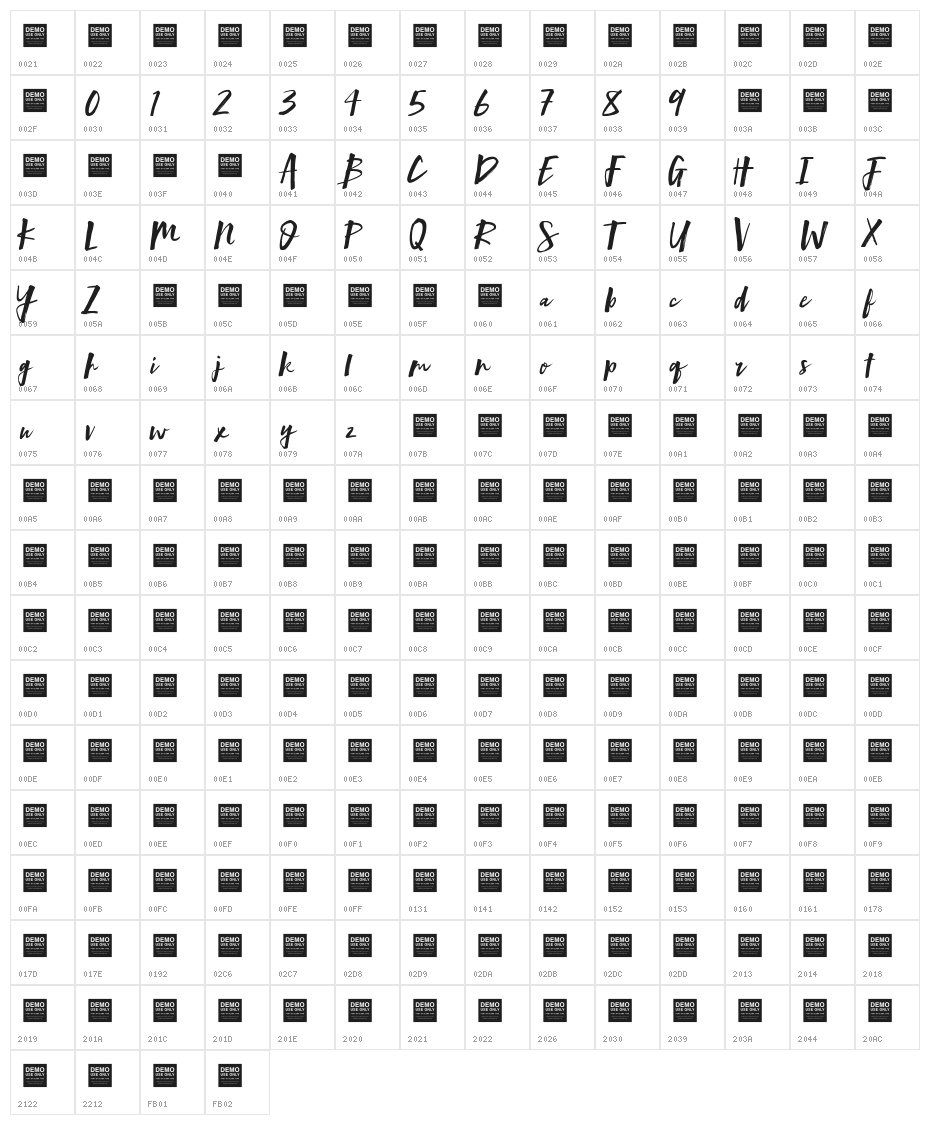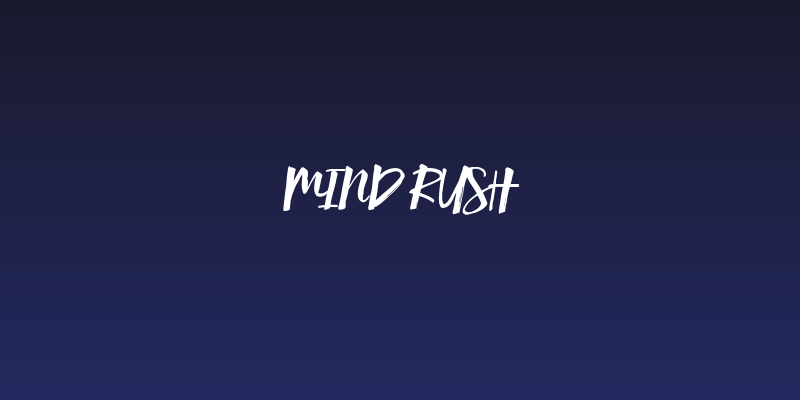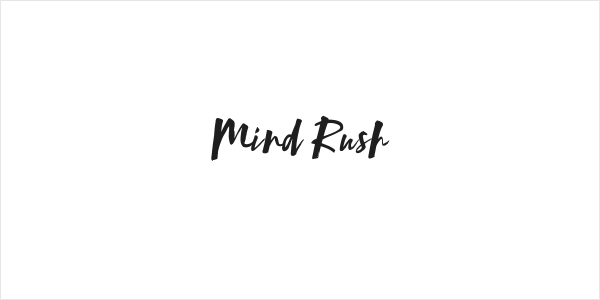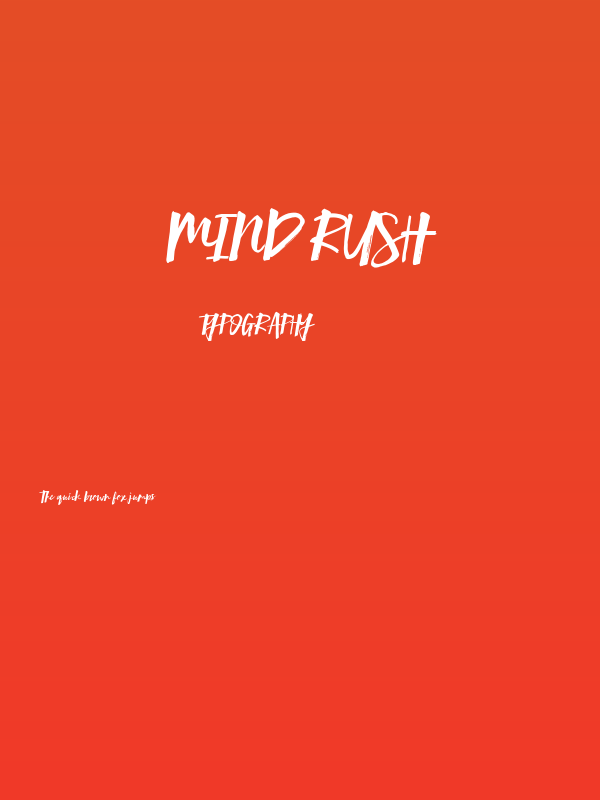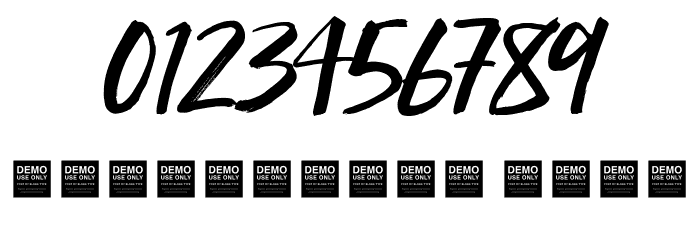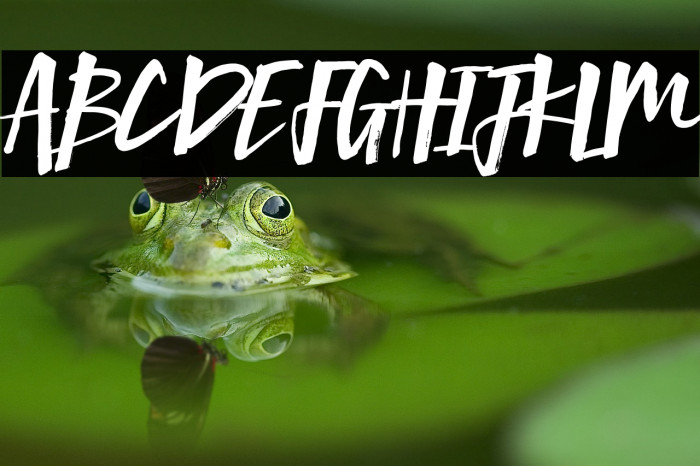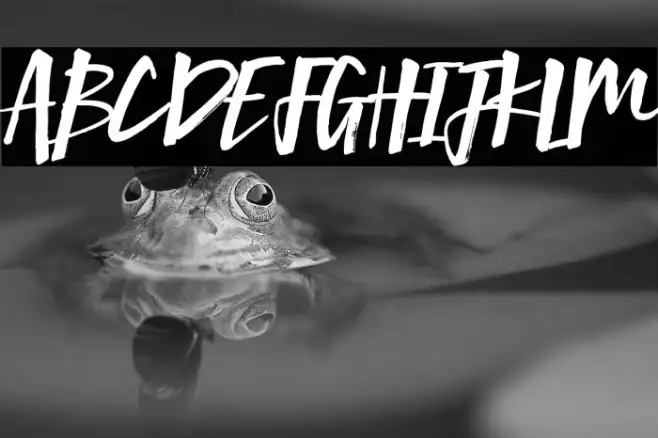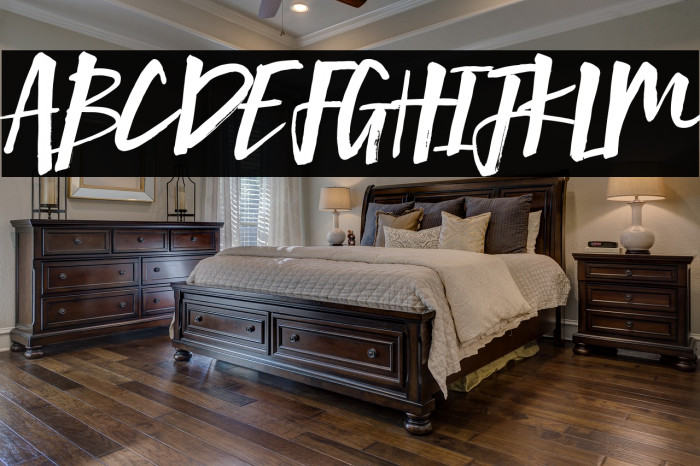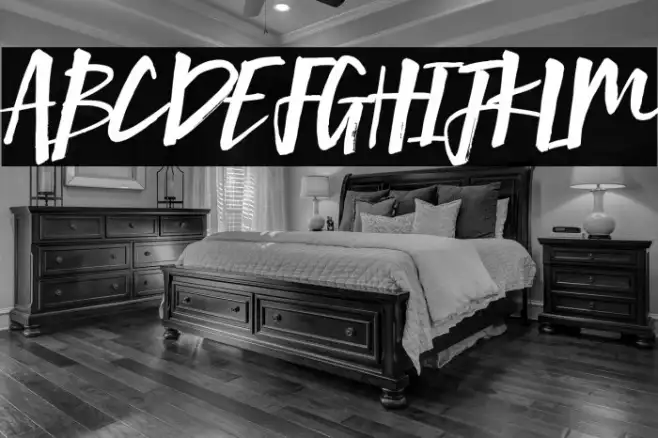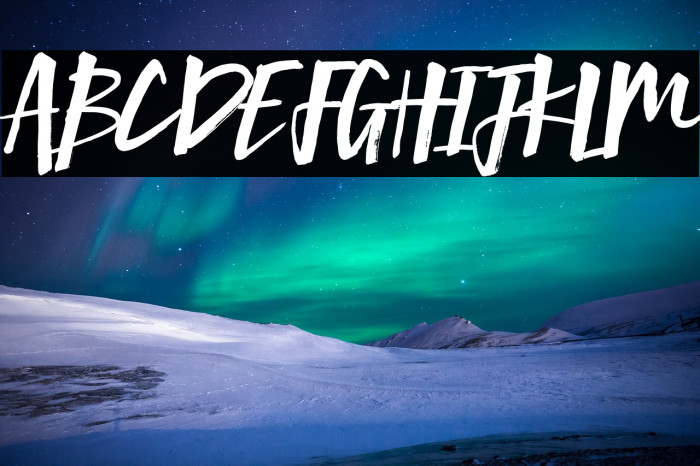
Mind Rush Font
Mind Rush Description
This font features a bold, energetic script style with a hand-painted appearance. The letters are dynamic and fluid, showcasing a sense of movement and spontaneity. The strokes vary in thickness, adding a lively and textured feel to the text. The uppercase letters are particularly striking, with exaggerated curves and angles, while the lowercase letters maintain a consistent flow. Numbers and special characters are designed with the same expressive quality, ensuring a cohesive look across all elements. This font is ideal for projects that require a personal, artistic touch.